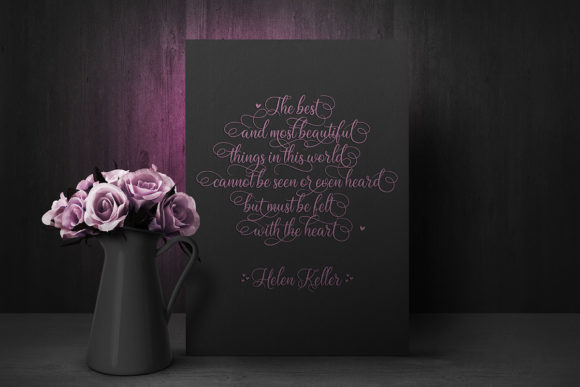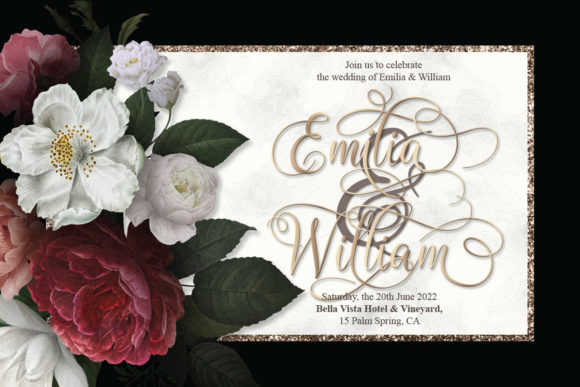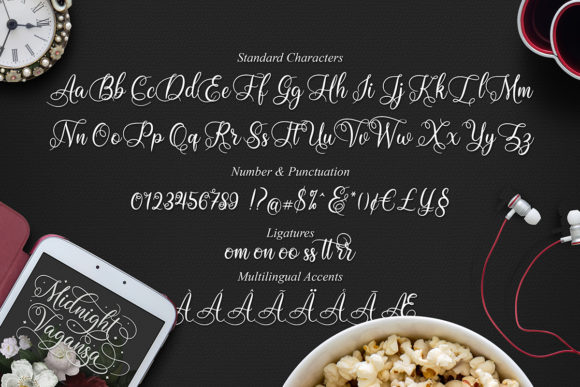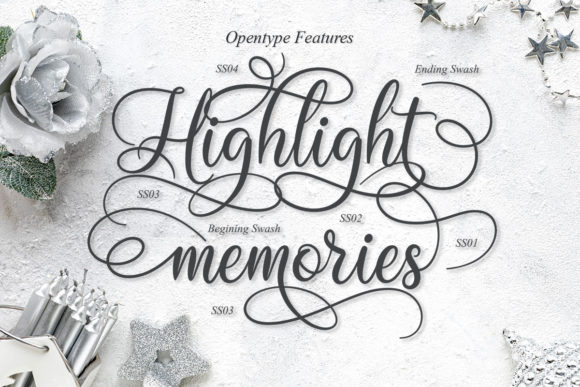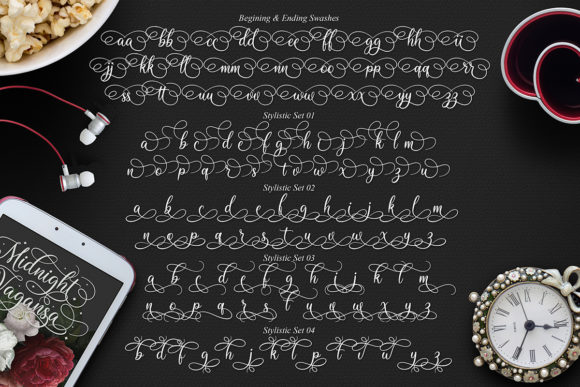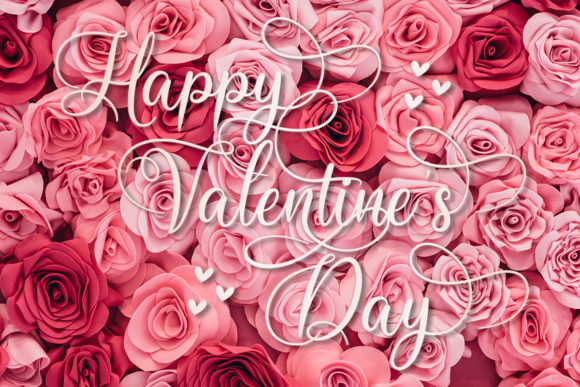
Introduction to Midnight Vagansa Font Font
Fonts play a crucial role in design, and the Midnight Vagansa Font font is a typeface that brings both character and versatility to any project. Whether you’re working on a branding project, a website, or a print design, the Midnight Vagansa Font font offers a unique style that can elevate your work.
Midnight Vagansa is an elegant script font with a contemporary atmosphere and impeccable form, inspired by timeless classic calligraphy.
Not too thin and not too thick, balanced and varied, this font was designed to enhance the beauty of your projects This font is PUA encoded which means you can access all of the glyphs and swashes with ease.
Key Features of Midnight Vagansa Font Font
Why Choose Midnight Vagansa Font Font?
The Midnight Vagansa Font font is more than just a typeface – it’s a design tool that helps you communicate your message with style and clarity. Its unique character set and versatile design make it suitable for a wide range of applications, from elegant invitations to bold headlines.
With its carefully crafted letterforms and balanced proportions, the Midnight Vagansa Font font ensures readability and visual appeal across all mediums.
What makes Midnight Vagansa Font font special?
The Midnight Vagansa Font font stands out with its unique design, exceptional readability, and versatility across various design applications.